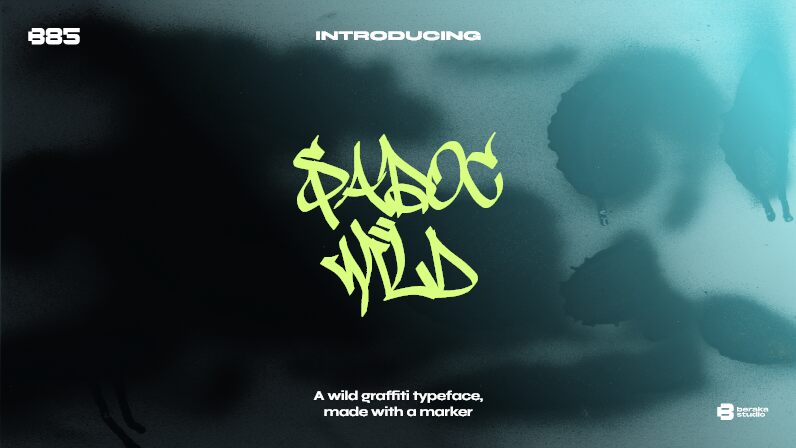
Sadoc Wild font by B85 is a condensed graffiti font inspired by urban art. The typeface has prominent expressiveness and an aggressive tone, projecting a uniquely modern, edgy appearance. Featuring artistic flair, the artistic characters will bring a new dimension to any design or written text.
Use the free display font in energetic graphic posters, creative packaging designs, clothing branding, book covers, advertisements, etc. Other possible use cases are flyers to promote events like concerts or parties. Websites and mobile applications interested in modern themes will find it useful as well.